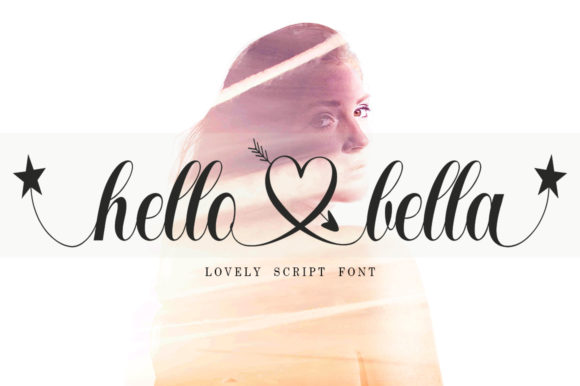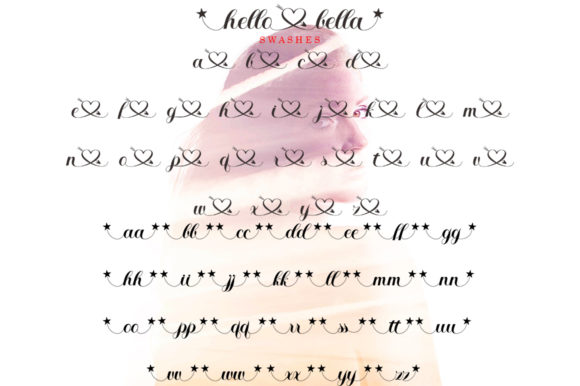
About Hello Bella Font
Hello Bella feels equally romantic and whimsical. It looks lovely on wedding invitations, thank you cards, quotes, greeting cards, logos, business cards and every other design which needs a handwritten touch.